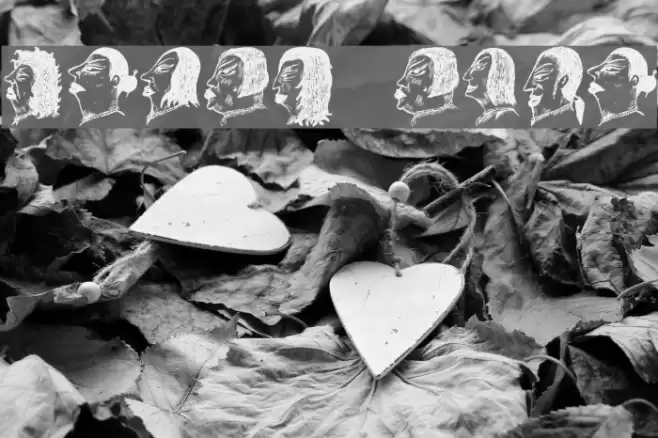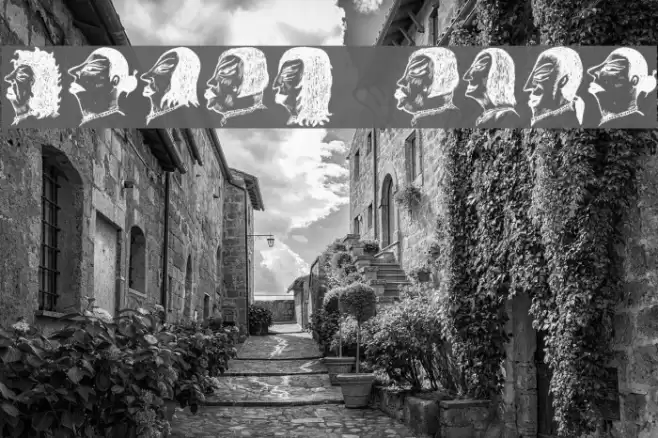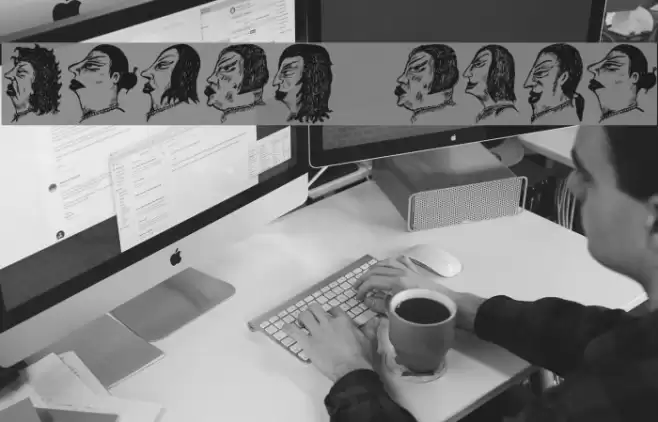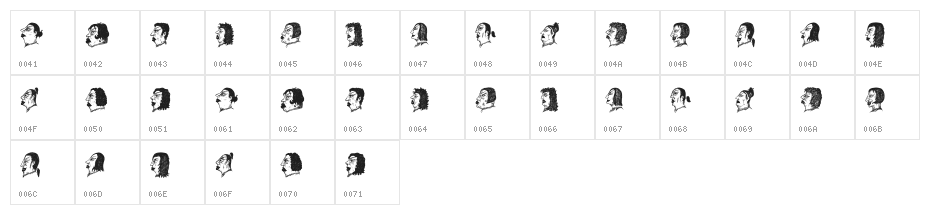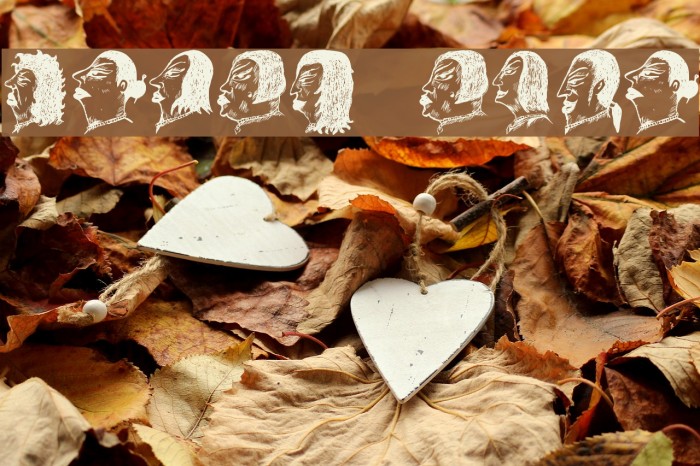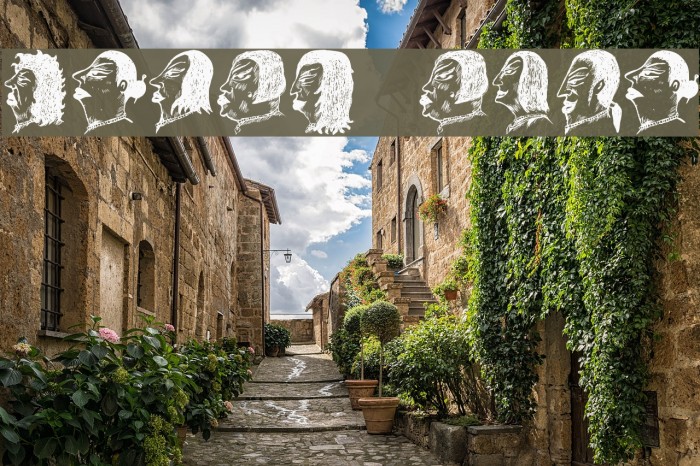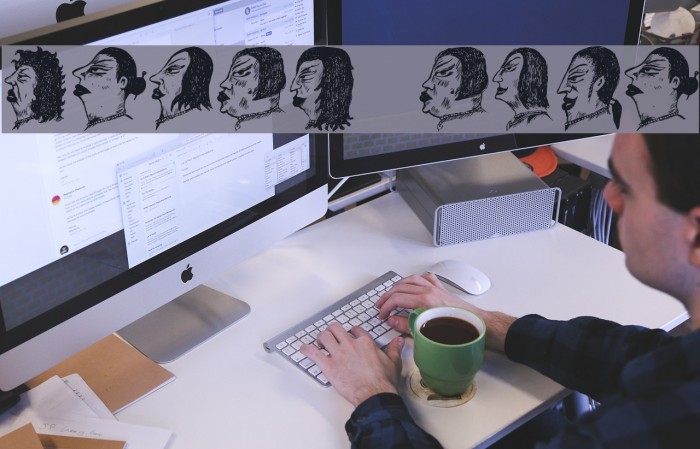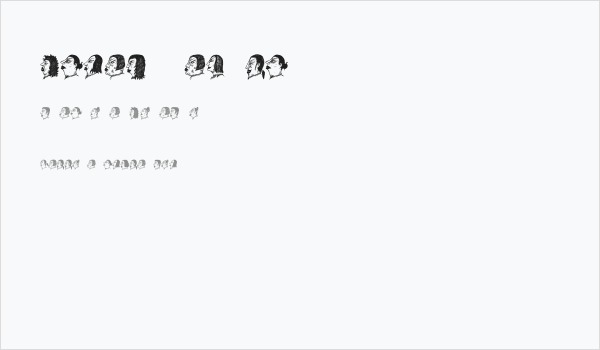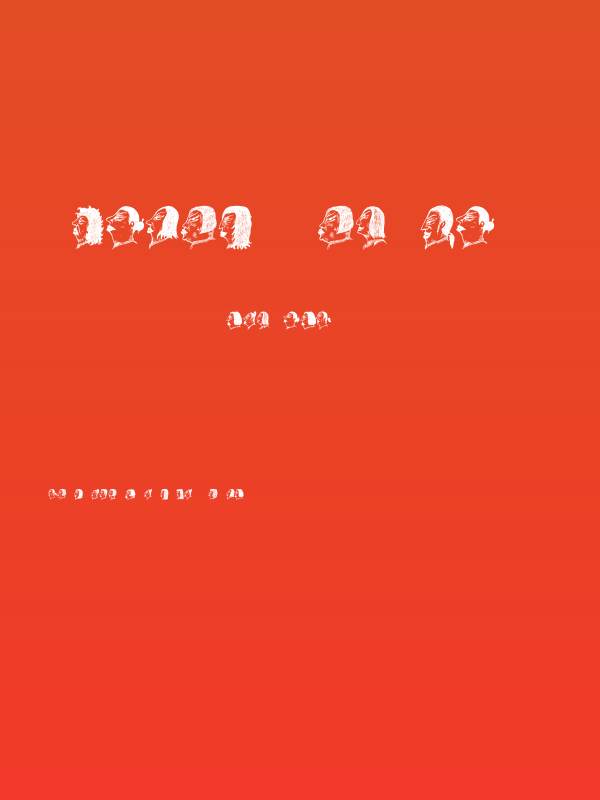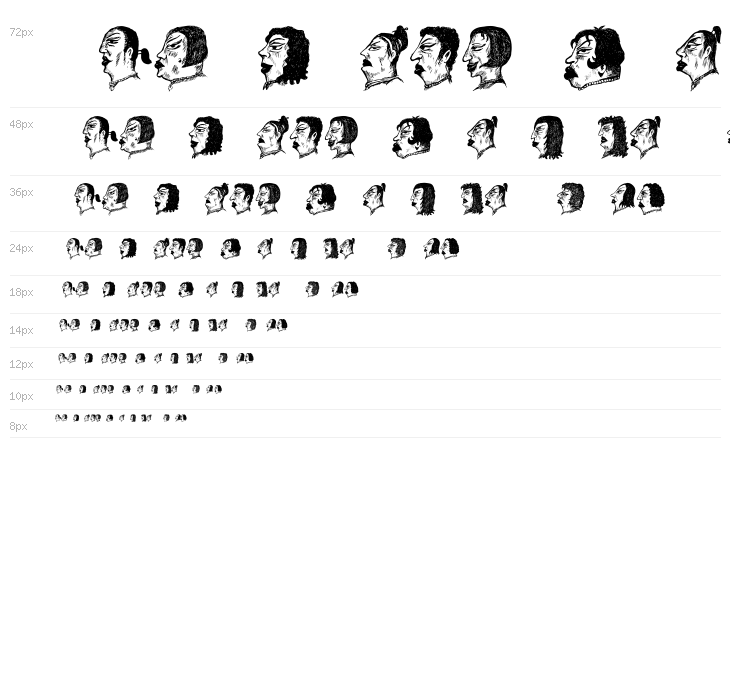
Damen Regular Font
Damen Regular Description
This is not a traditional font but rather a collection of artistic illustrations depicting various human profiles. Each character is represented by a unique, expressive face, showcasing a range of emotions and styles. The illustrations are detailed, with intricate line work and shading that give each face a distinct personality. This set is more of an artistic expression rather than a functional typeface, making it suitable for creative projects that require a unique visual element.
A collection of artistic human profile illustrations, not a traditional font from Uncategorized fonts.
- Proposed Projects: Ideal for creative artworks, posters, or any project requiring unique visual elements.
- Overall Style: Artistic, Illustrative
- Use Case: Artworks, Posters, Creative Projects